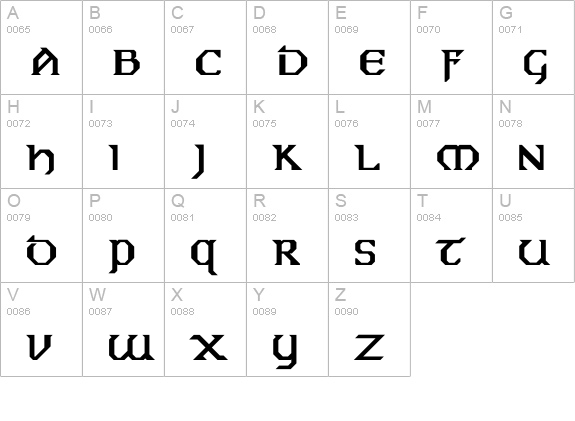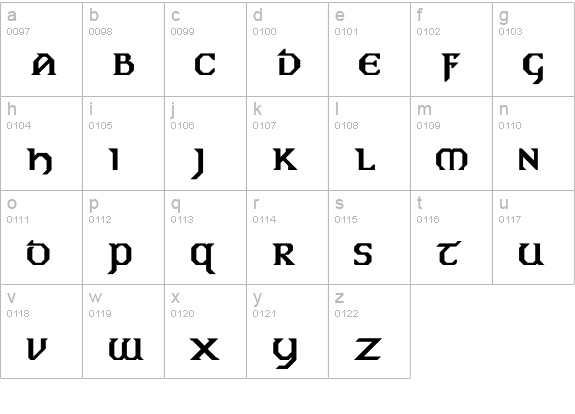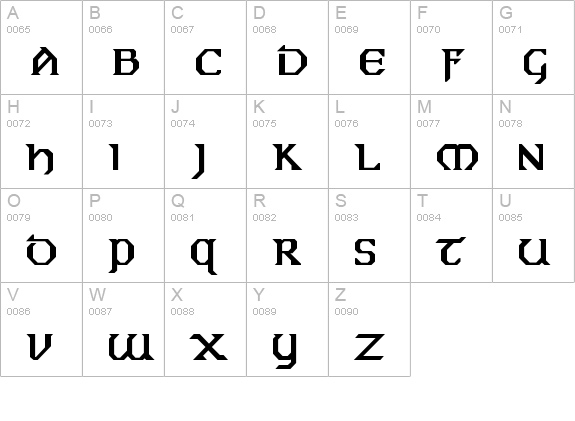
Eire Bold is a strong, high-contrast variant in the Eire typeface family \xE2\x80\x94 well suited to headlines, attention-grabbing titles, and strong calls-to-action.
Eire Bold is a striking and versatile typeface that combines classic elegance with a modern edge. Its bold and confident letterforms make it perfect for headlines, posters, and other eye-catching designs. The sharp serifs and clean lines give Eire Bold a timeless appeal that will make your text stand out. What's even better is that Eire Bold is available for free! You can easily download this exceptional font at FontsMarket.com. Whether you're a professional designer looking for a new go-to typeface or a hobbyist experimenting with typography, Eire Bold is sure to impress with its bold presence and stylish design. Don't miss out on the opportunity to enhance your projects with this fantastic font - download Eire Bold today!